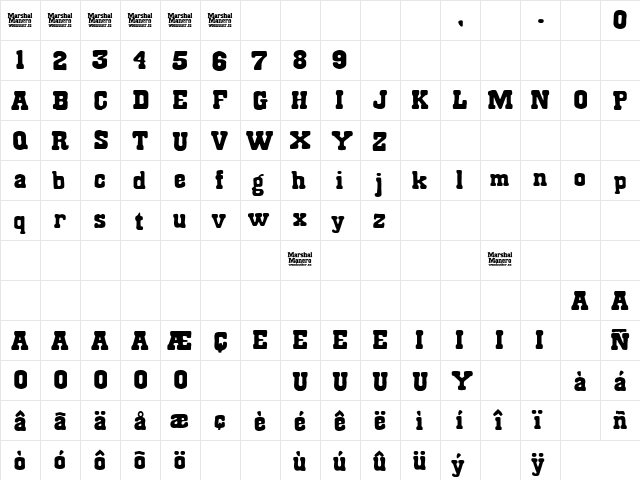
Marshal Manero Regular
Marshal Manero is a composed and adaptable typeface that performs quietly and consistently across a wide range of design contexts.